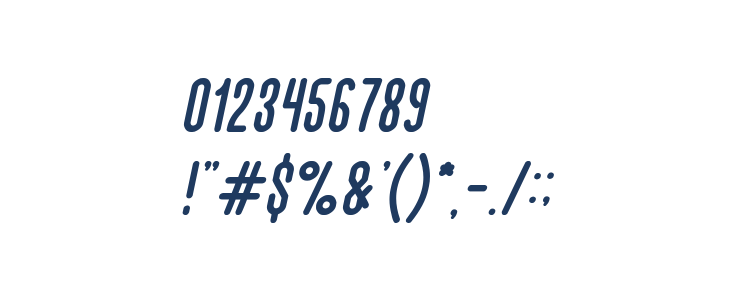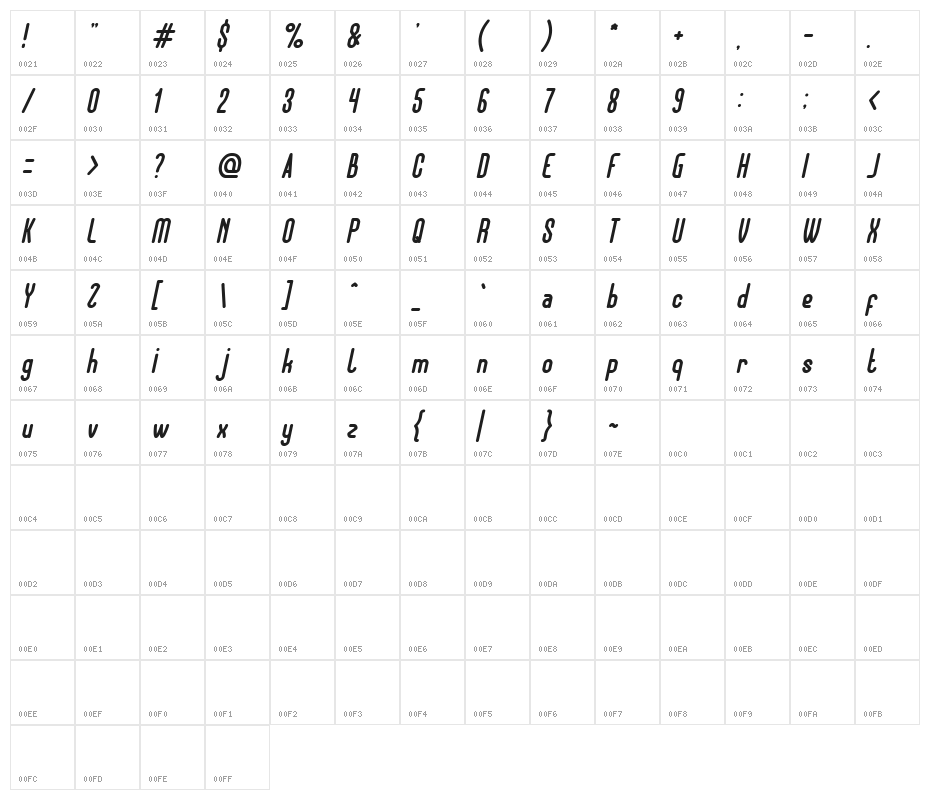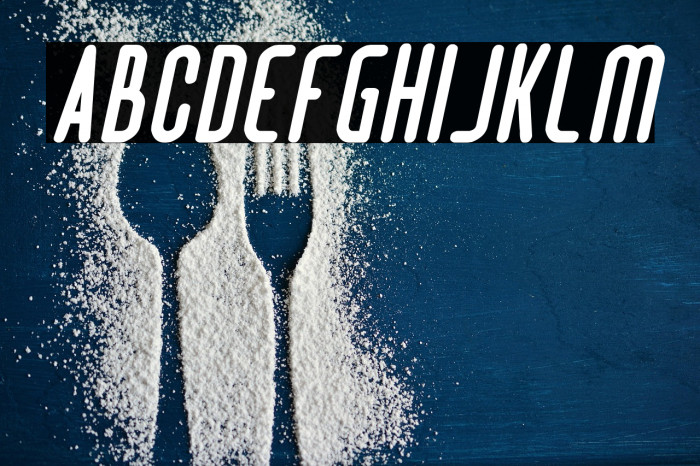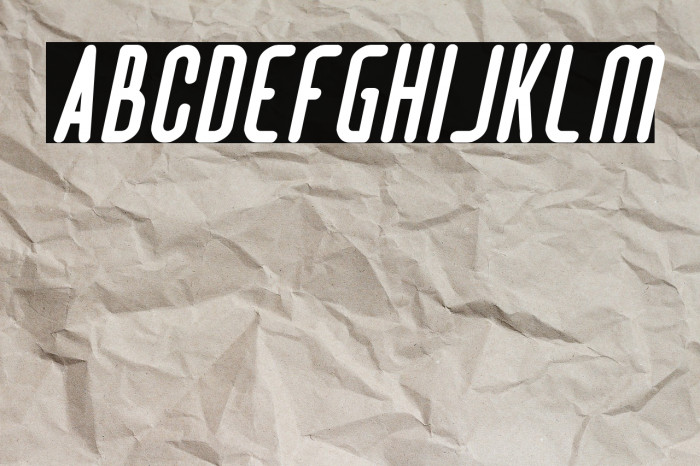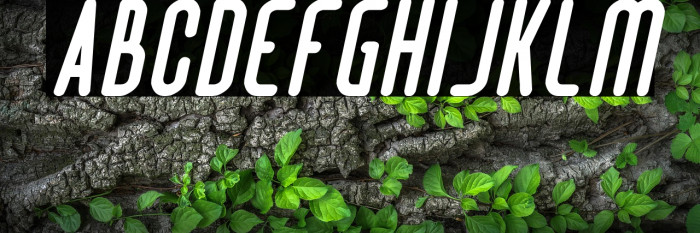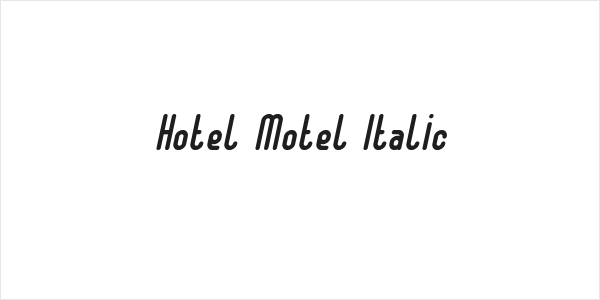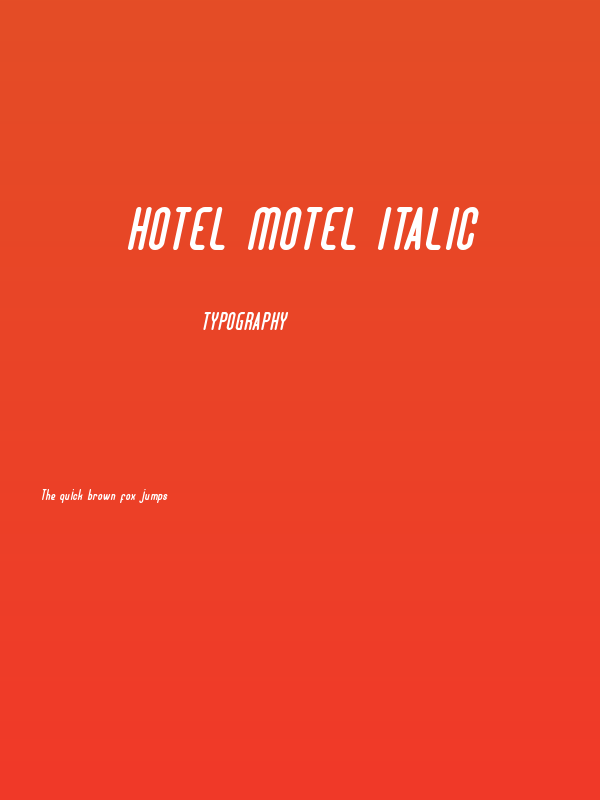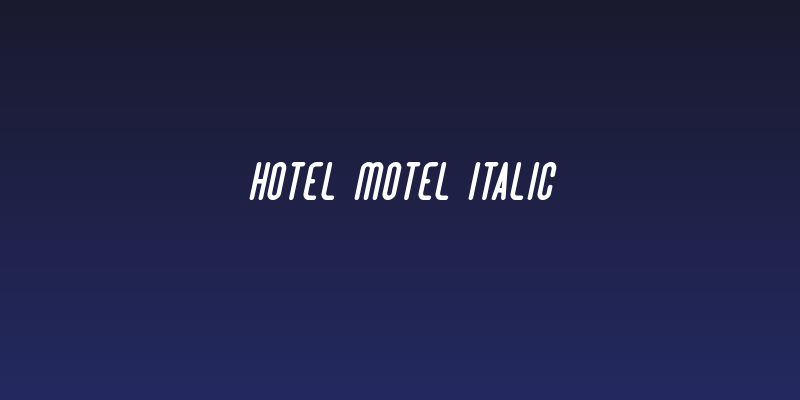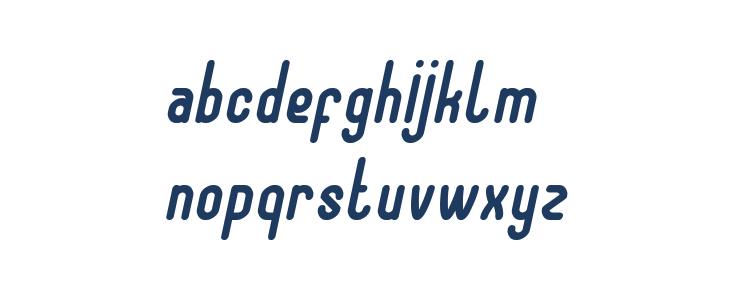
Hotel Motel Italic Font
Hotel Motel Italic Description
This font features a playful and dynamic style with a distinct italic slant, giving it a sense of movement and energy. The characters are rounded and bold, with a smooth, flowing appearance that adds a touch of modernity. The uppercase and lowercase letters maintain a consistent style, while the numerals and special characters complement the overall design. The font's unique character shapes and bold presence make it stand out, making it suitable for eye-catching designs.
| Proposed Projects | Ideal for branding, posters, and advertising where a modern and energetic look is desired. |